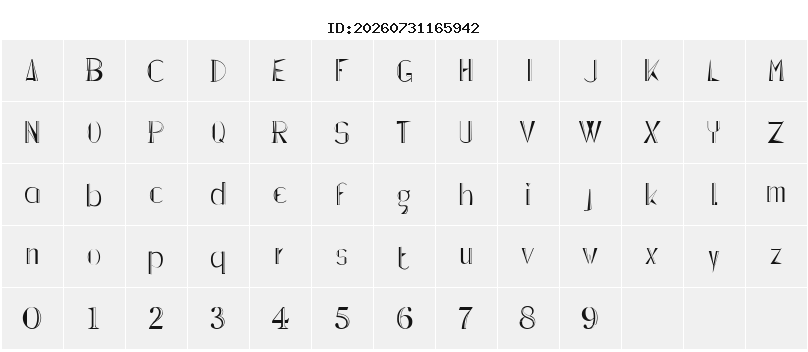
Lepinado Line Preview
• Font Name: Lepinado Line
• Designer: Pedro Lepinado Muñoz
About Lepinado Line.ttf
Lepinado Line.ttf is a modern, elegant sans-serif font designed for ultimate readability and visual harmony. Perfect for branding, headlines, web design, and print materials.